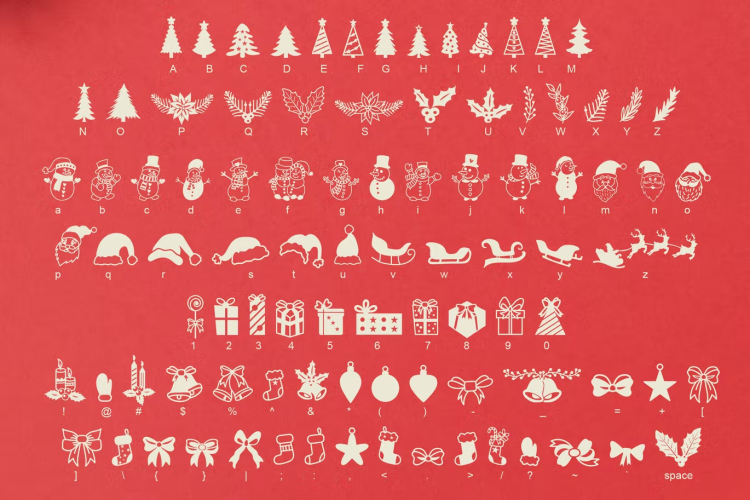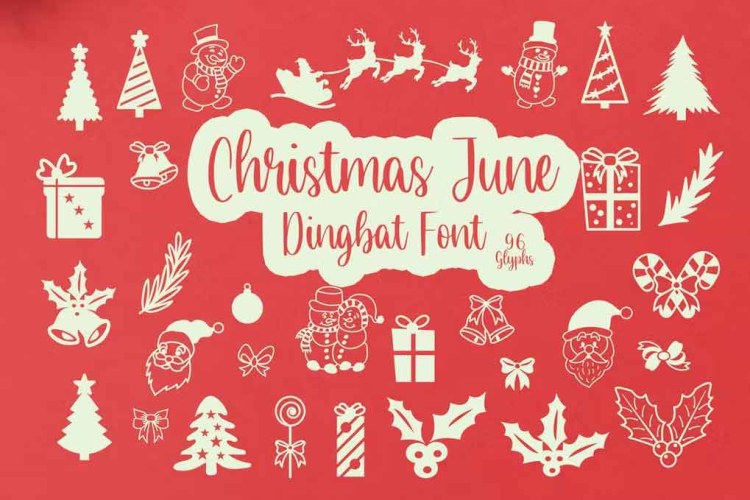
Christmas June Dingbat Font
Christmas June Dingbat font – christmas decoration elements font Included total 96 glyphs, upper case, lower case, numbers, punctuation and symbols. included files :
Christmas June Dingbat font – christmas decoration elements font Included total 96 glyphs, upper case, lower case, numbers, punctuation and symbols.
Where Christmas June Dingbat Font works best
Seasonal campaigns
Christmas June Dingbat Font gives a holiday or themed promotion its own look without redrawing anything; use it for the headline only.
Party and family invitations
Decorative letters set the mood before the text is read. Pair Christmas June Dingbat Font with a plain sans for the practical details.
Game and video titles
Themed lettering sells the world of a game or a channel in one frame.
What kind of work does Christmas June Dingbat Font suit?
It sits in the Decorative Fonts group and reads as christmas, decorative, decorative fonts, headlines. That makes it a candidate wherever those qualities help: headings, packaging, social graphics and brand work. Set it at the size you plan to use before deciding.